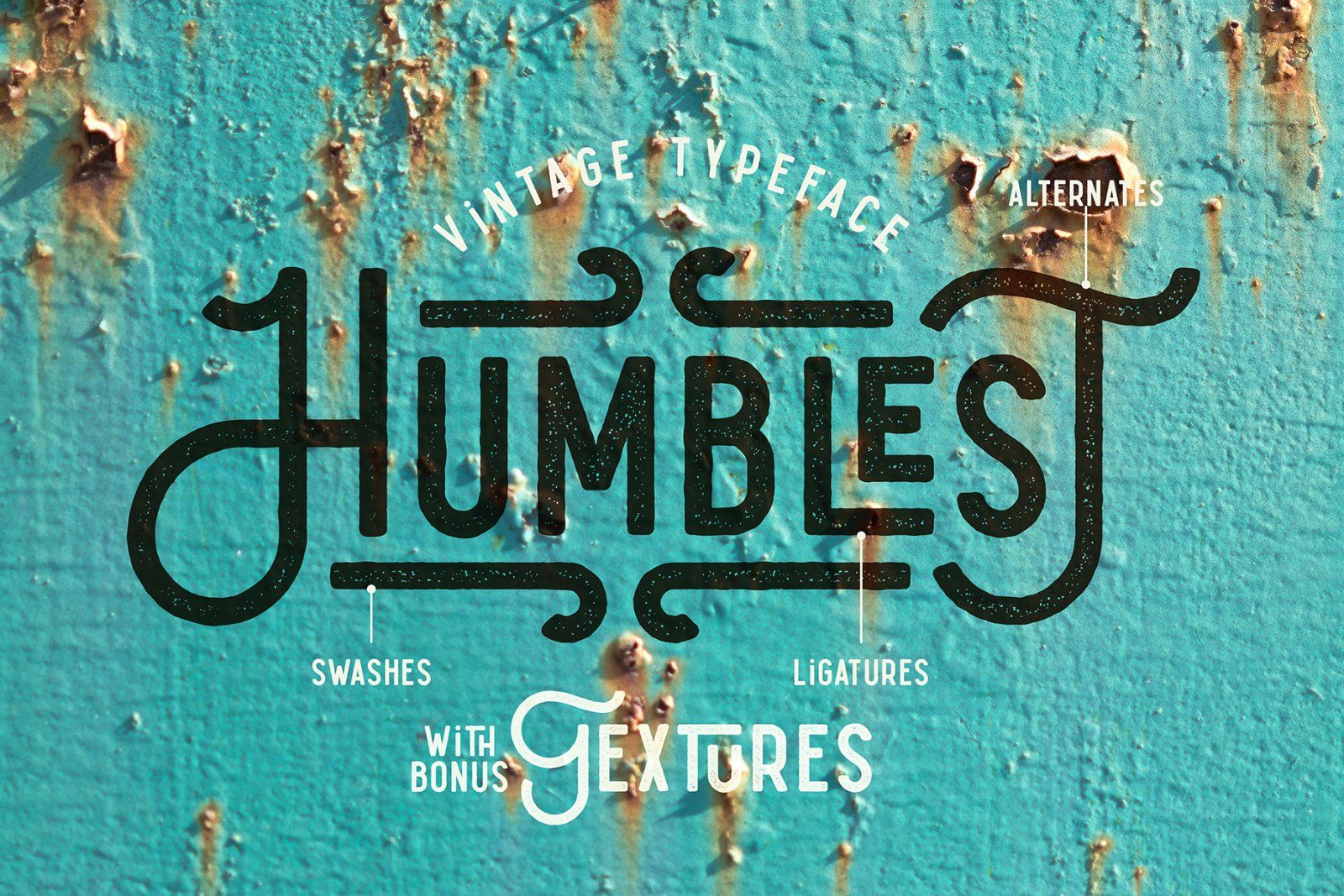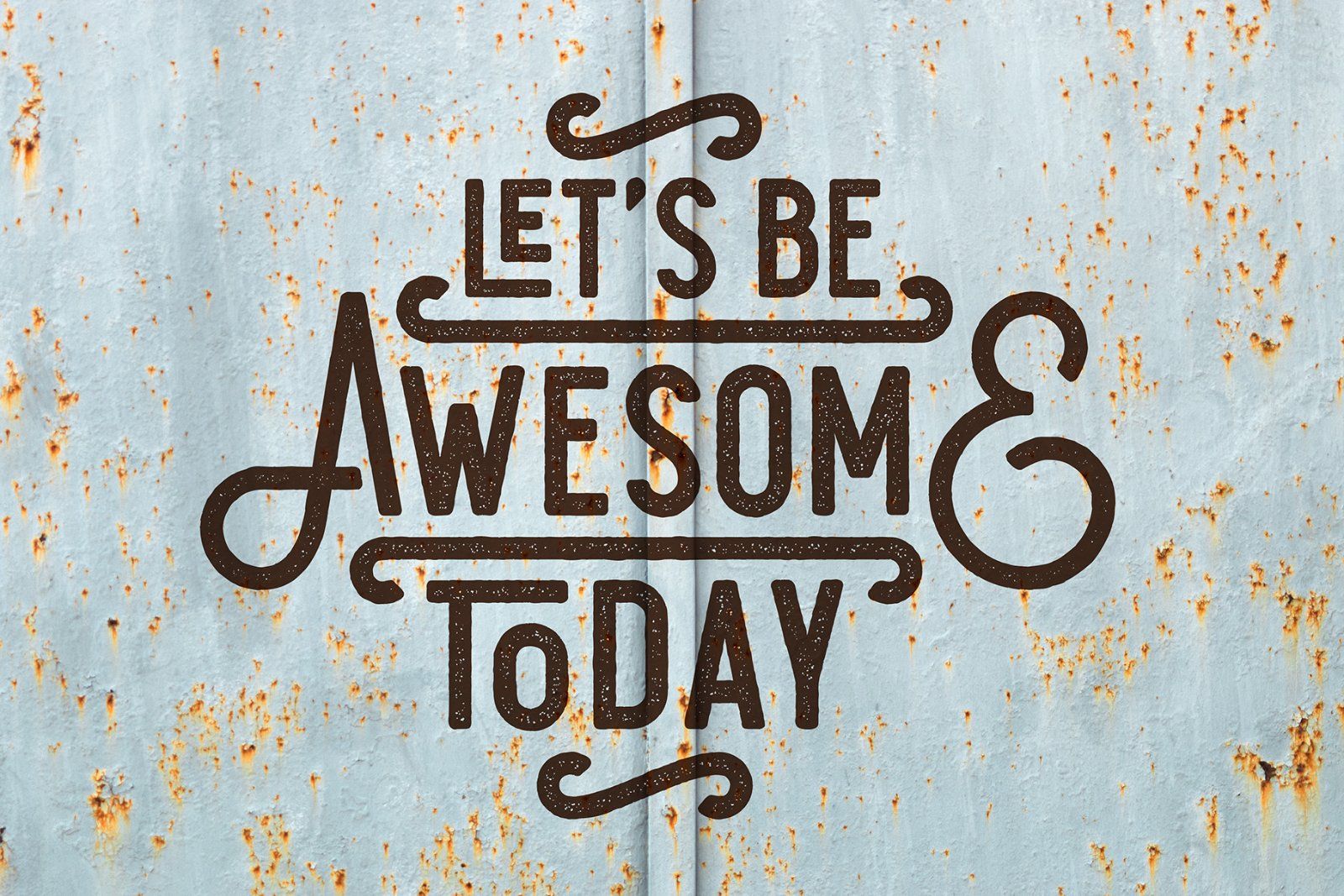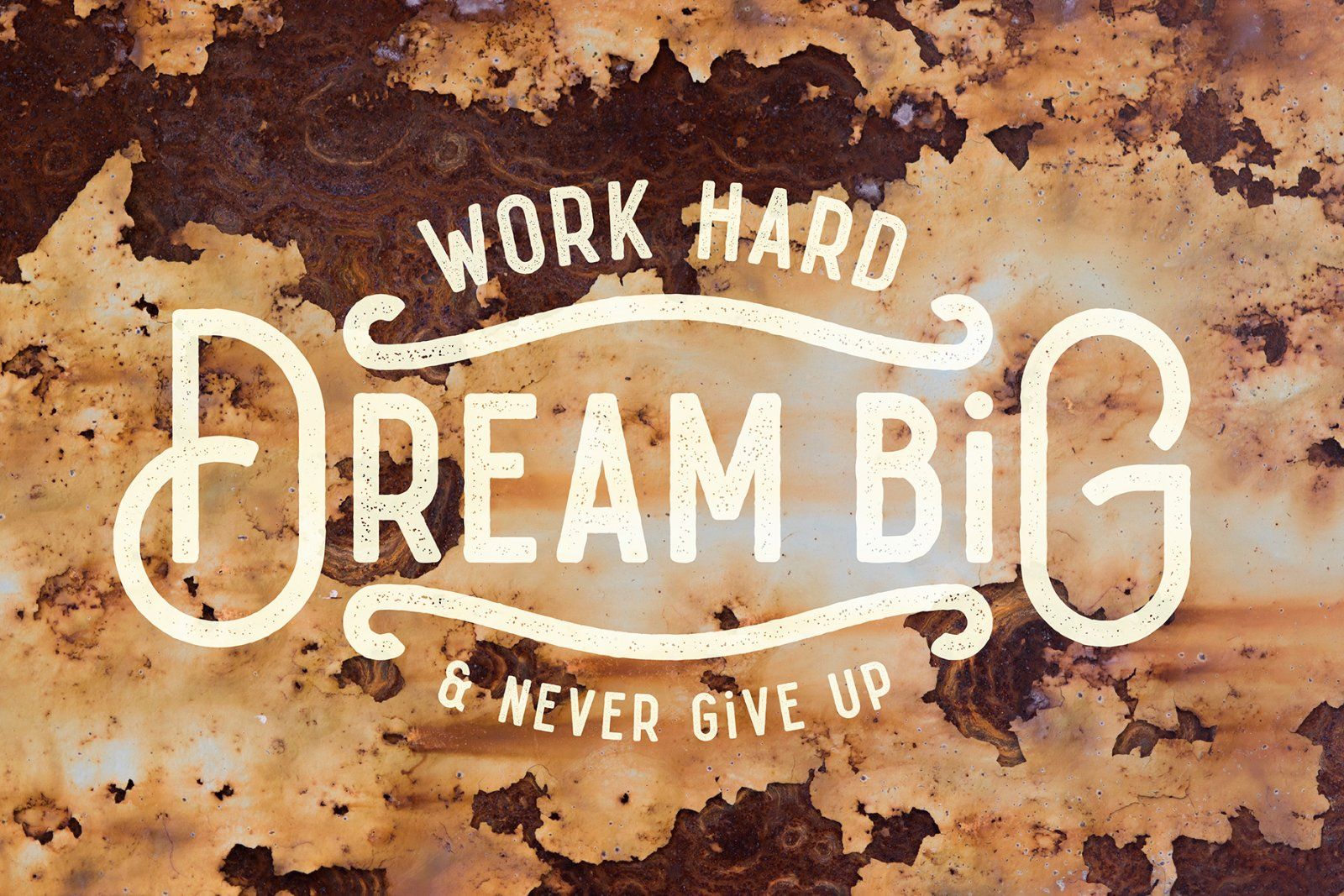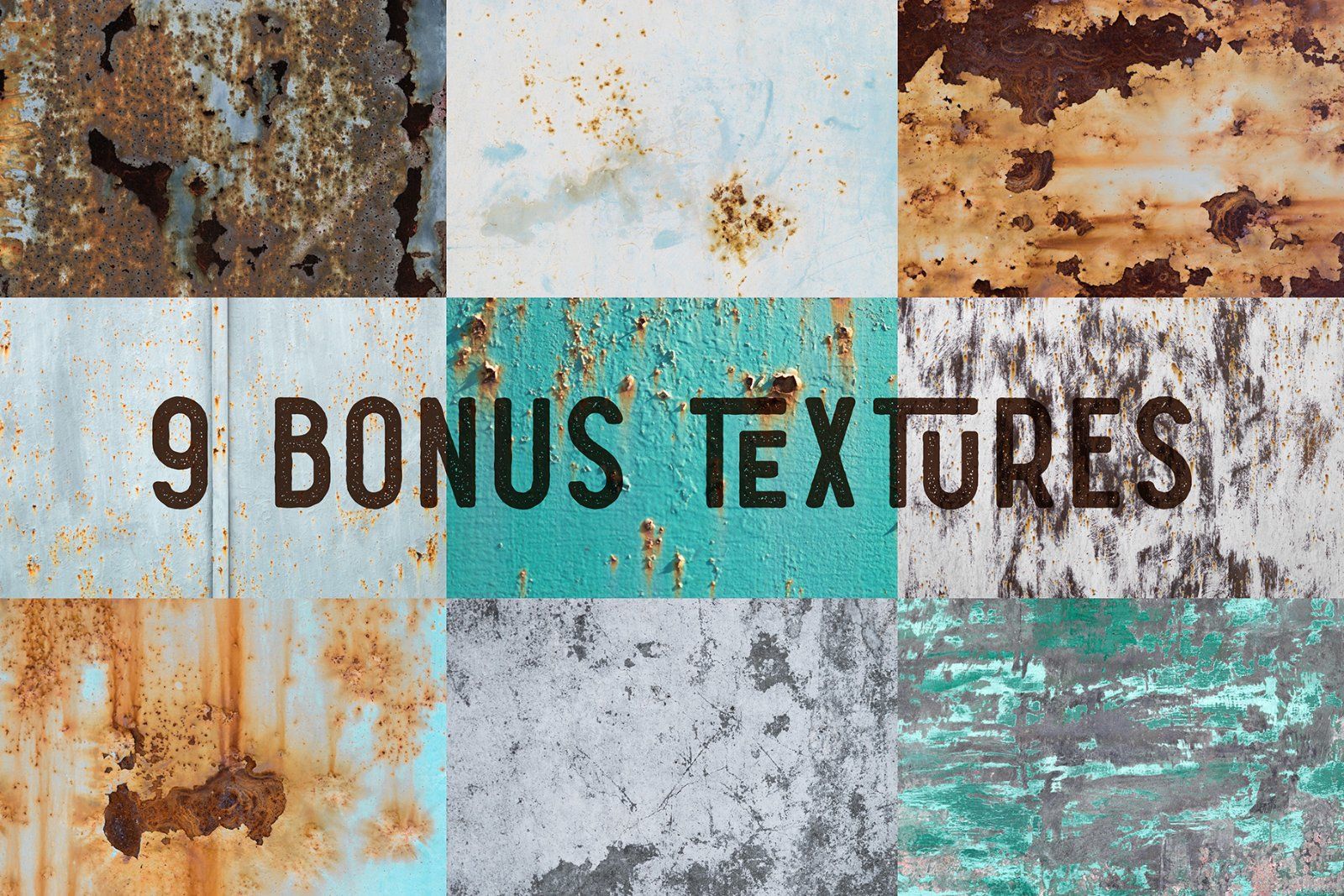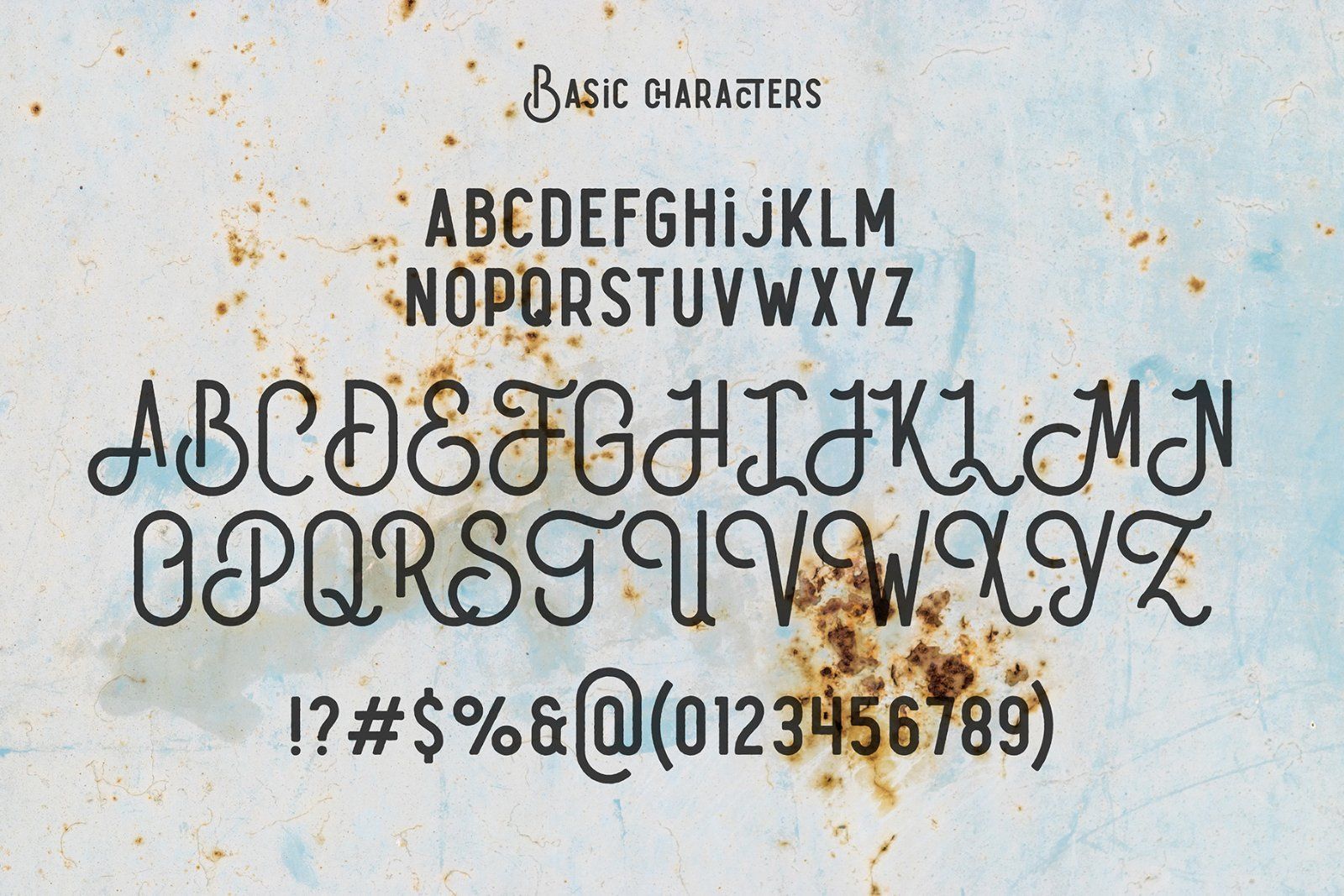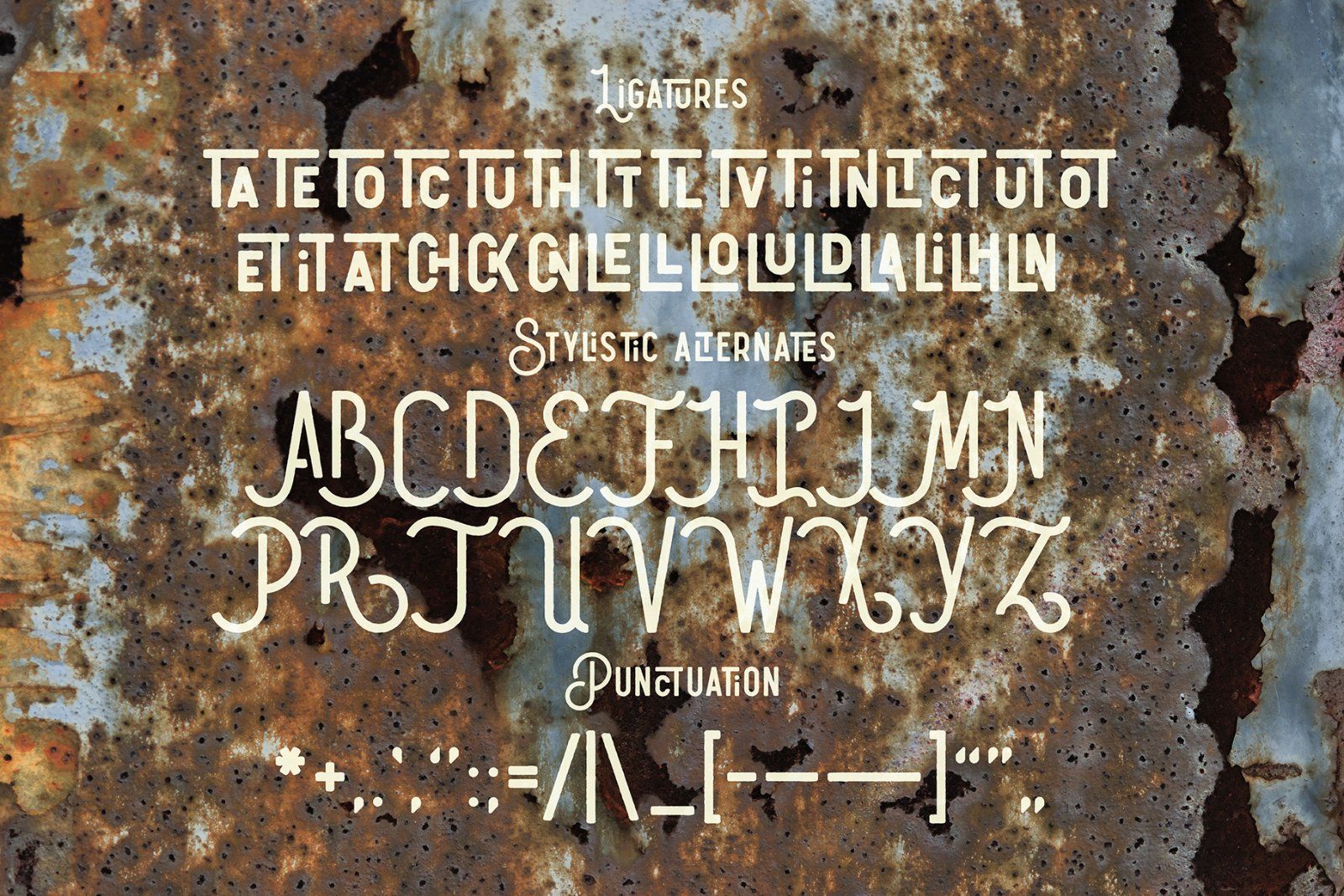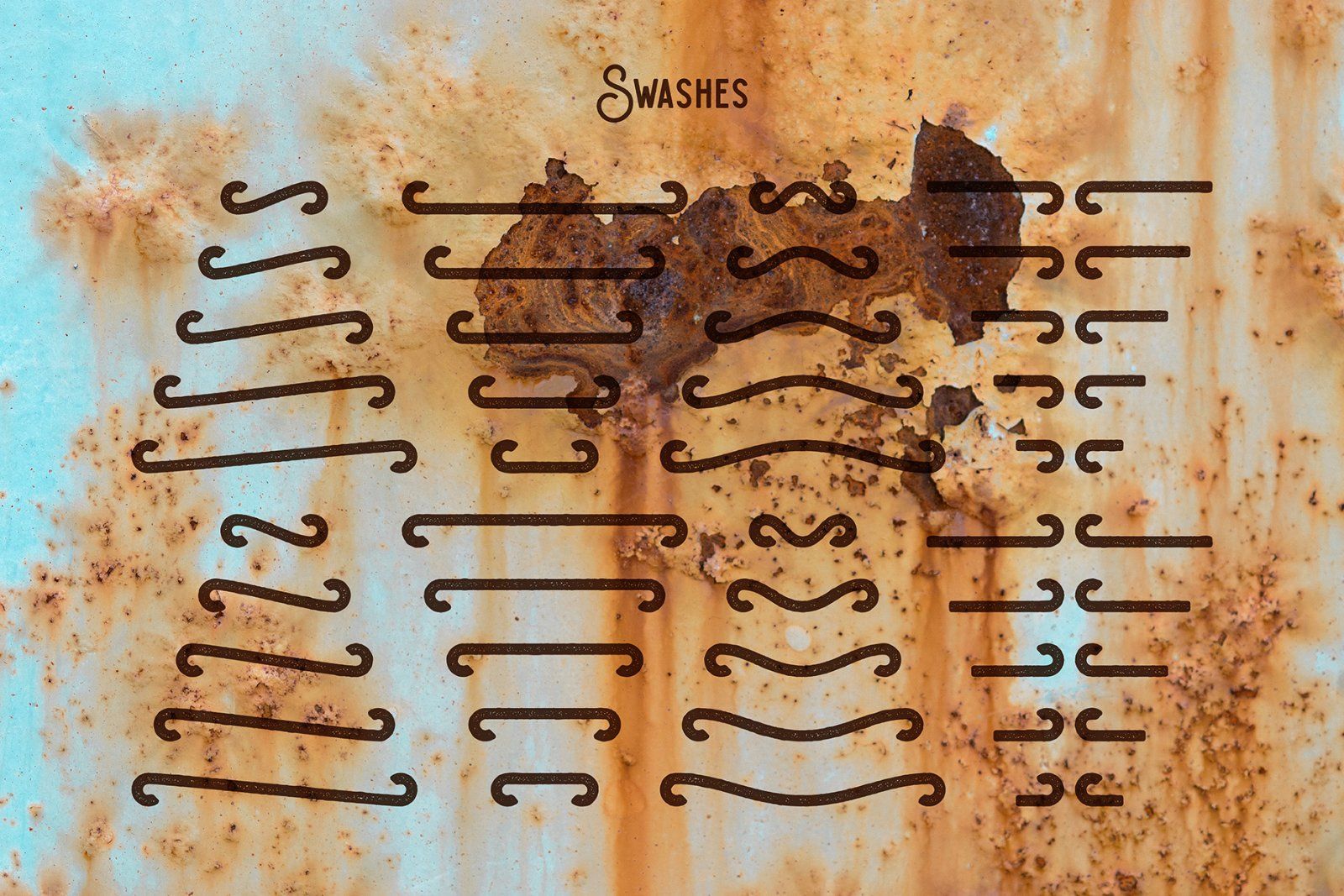
Hello! Here is another one vintage typeface named "Humblest". It has useful OpenType features: 20 stylistic alternates for caps and 30 ligatures (6th screenshot). Also it comes with additional font file with swashes (7th screenshot). For small sized text the simple font version included "Humblest Clean" (it is without noisy effect inside the characters). And in conclusion you will have a nice bonus – a pack of 9 high resolution photos of rusty textures.
Note: This font contains only Latin characters (all available characters you can see on 2nd, 6th & 7th screenshots)